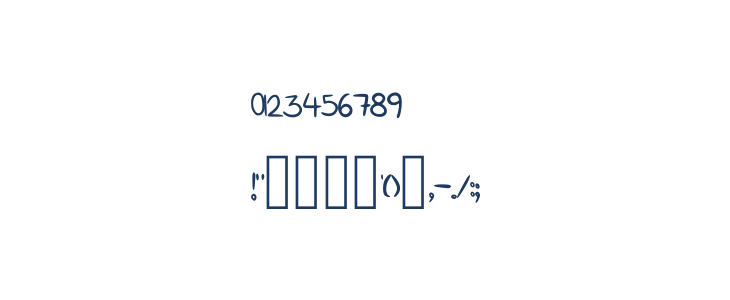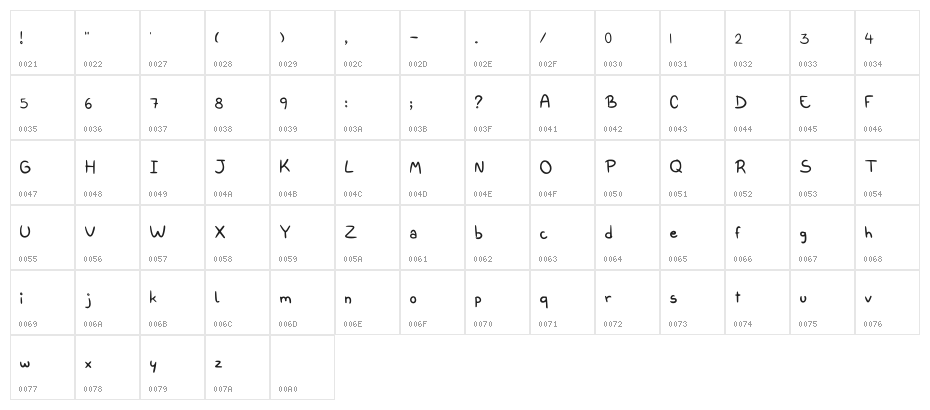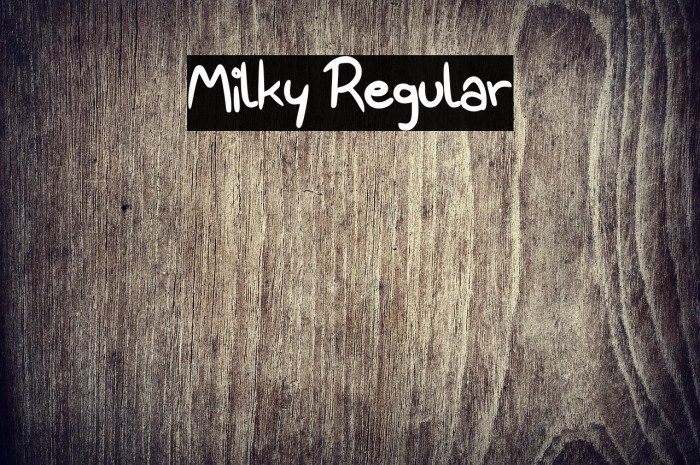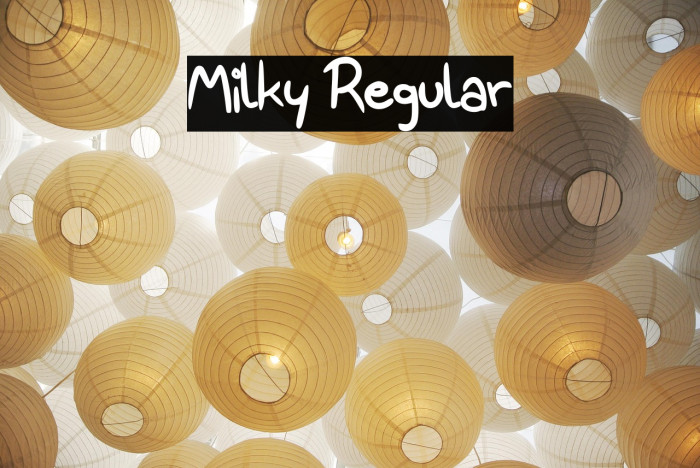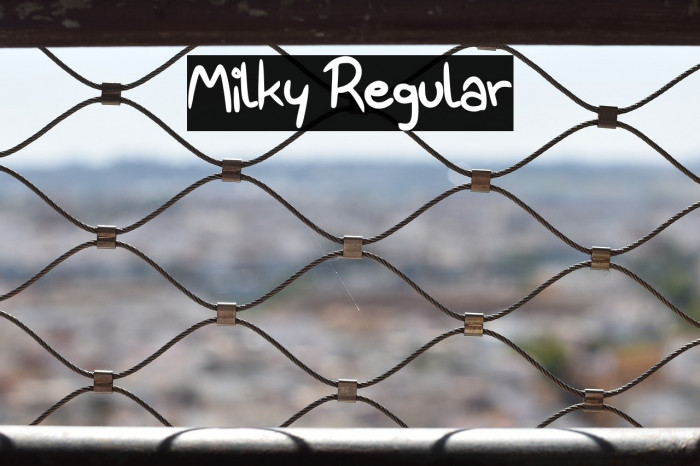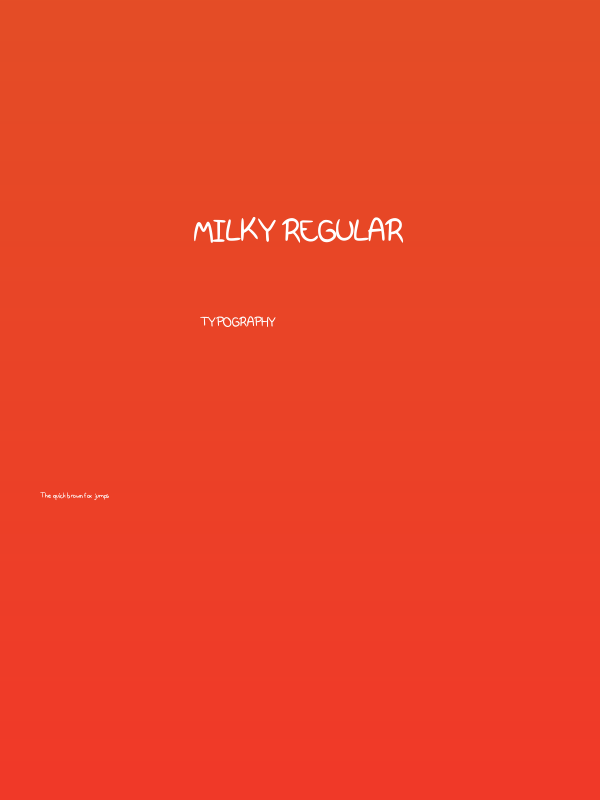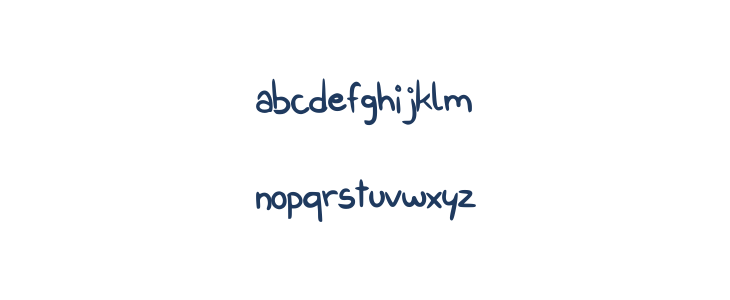
Milky Regular Font
Milky Regular Description
This playful and whimsical font features rounded, smooth strokes that give it a friendly and approachable appearance. The characters are slightly irregular, adding a hand-drawn feel that enhances its charm. The uppercase letters are bold and prominent, while the lowercase letters maintain a consistent style with a slightly smaller size. The numbers and special characters follow the same playful design, making the font versatile for various creative projects. Its overall style is casual and fun, perfect for adding a touch of personality to any design.
| Proposed Projects | Ideal for children's books, playful branding, greeting cards, and casual invitations. |